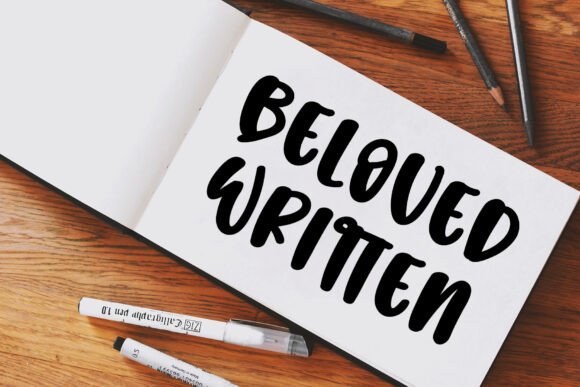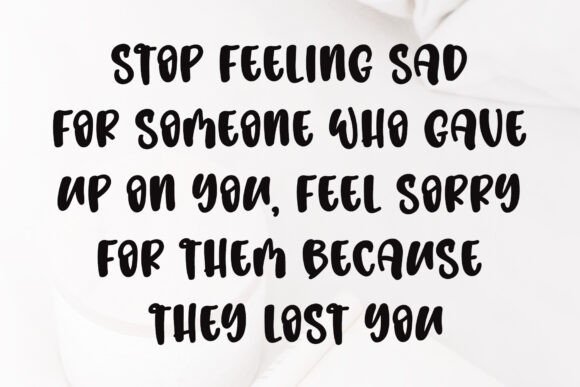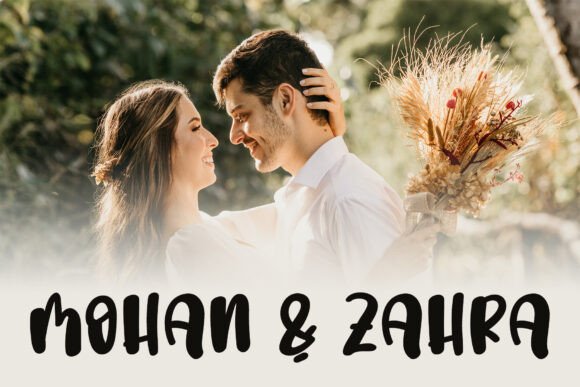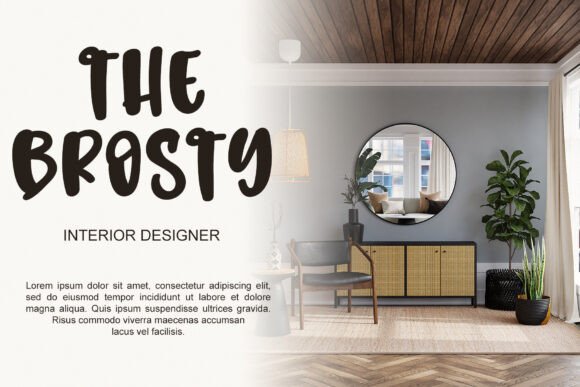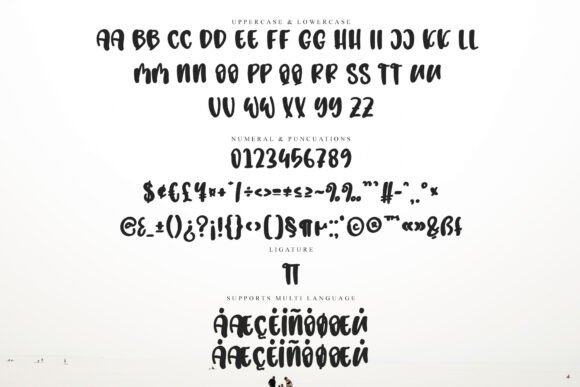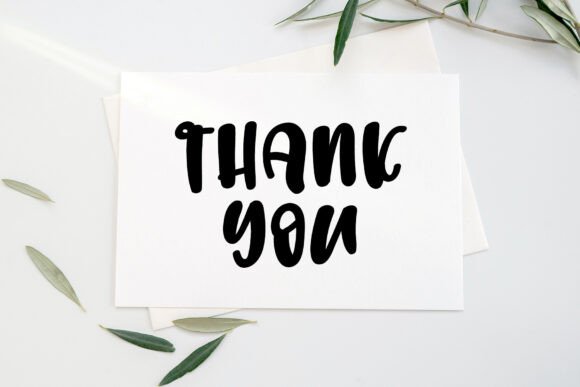
Introduction to January Vacation Font
As designers, we’ve all been there – staring at a blank page, trying to spark that elusive creative spark. For me, it’s often the discovery of a new design resource that sets the wheels in motion. And today, I’m excited to share with you a font that’s sure to brighten up your designs: the January Vacation Font.
This charming display font exudes whimsy and playfulness, making it the perfect addition to any creative project. With its transparent background and high-quality design, it’s an asset that will elevate your work and leave a lasting impression on your audience.
Key Features of January Vacation Font
- High-quality design for creative projects, perfect for adding a touch of winter wonder to your work.
- Designed to be versatile, making it suitable for various design applications, from print materials to digital projects.
- Unique, hand-crafted design elements that can add a personal touch to your creative project.
Honest Review: January Vacation Font
I recently came across the January Vacation Font, and I must say it’s a fantastic addition to any designer’s toolkit. This font is perfect for those creative projects that require a playful and fun touch. The high-quality design makes it suitable for both personal and commercial use.
- ✨ Unique and playful design that adds a fun touch to any project
- ✨ High-quality design that’s suitable for both personal and commercial use
- ✨ Transparent background makes it easy to customize and integrate into any design
However, there are some limitations to consider. The font may not be suitable for formal or professional projects, and the design may not be as versatile as some other fonts on the market.
Overall, I’m impressed with the January Vacation Font. It’s a great addition to any designer’s toolkit, and it’s perfect for those creative projects that require a playful and fun touch.